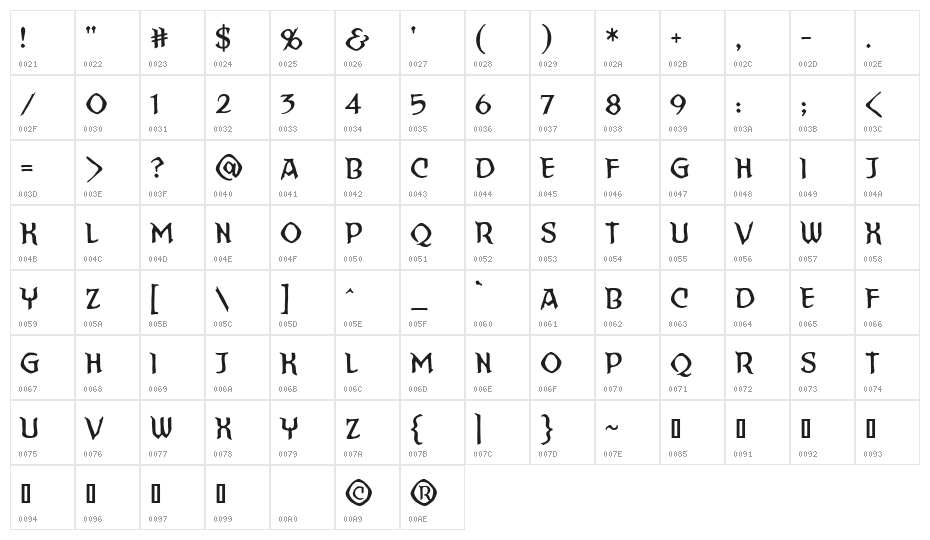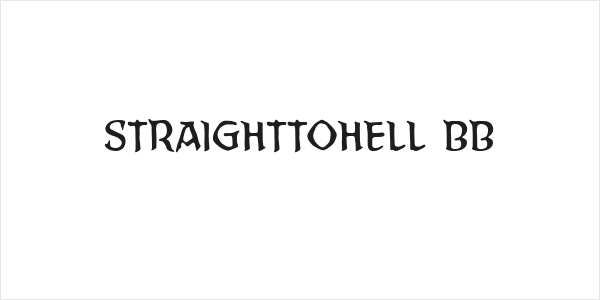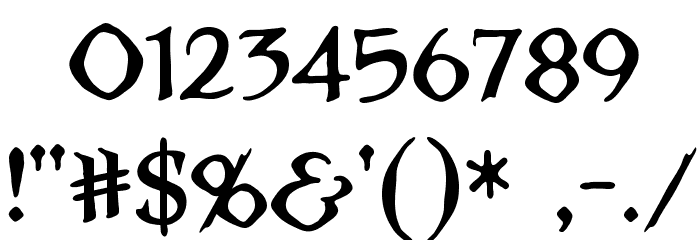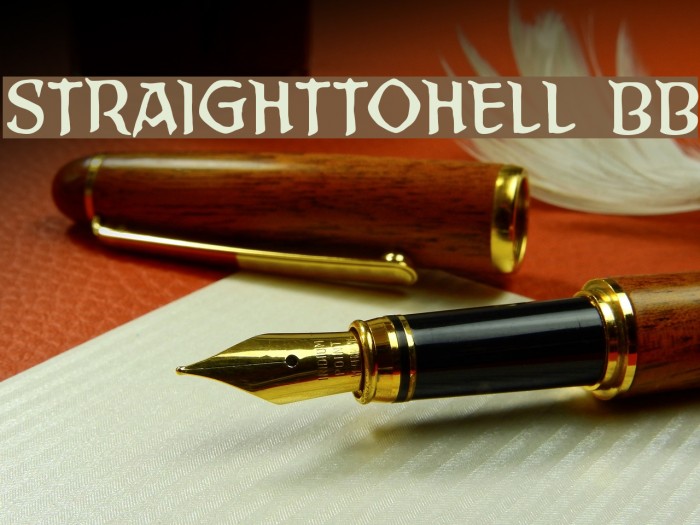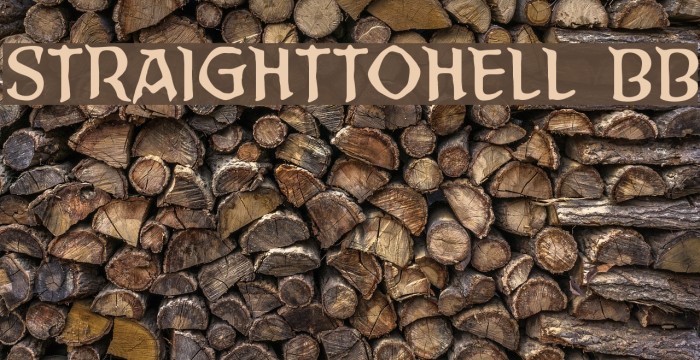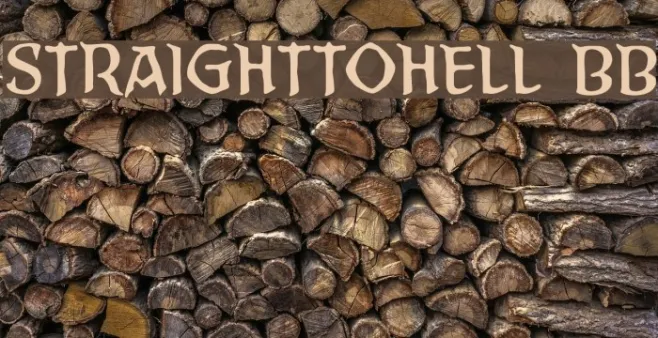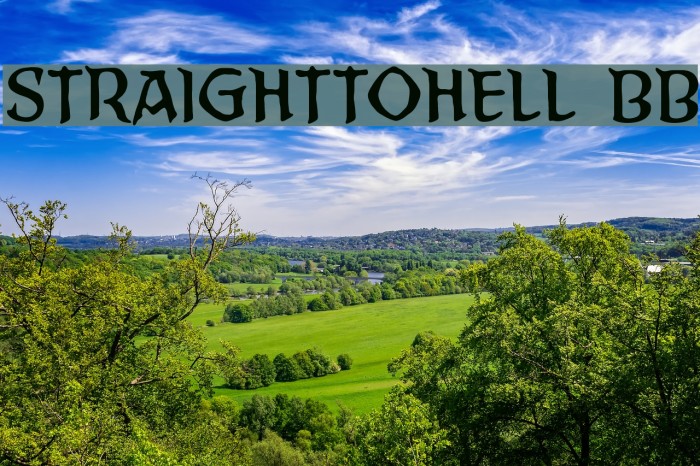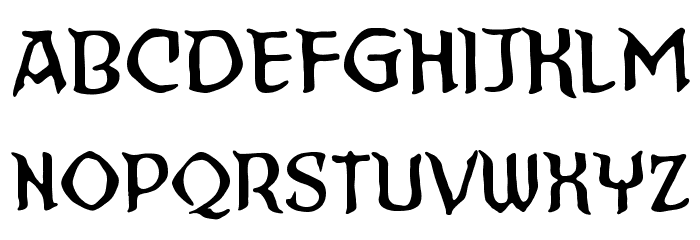
StraightToHell BB Font
StraightToHell BB Description
This font features a bold and dramatic style with sharp, angular edges and a gothic influence. The characters are designed with a strong presence, making them ideal for attention-grabbing headlines or titles. The uppercase and lowercase letters maintain a consistent style, with unique flourishes that add a touch of elegance and mystery. The numbers and special characters follow the same design principles, ensuring a cohesive look across all text elements. The overall appearance is both striking and memorable, suitable for projects that require a bold statement.
| Overall Style | Gothic, Dramatic |
| Proposed Projects | Ideal for use in horror-themed designs, album covers, posters, and branding that requires a bold, edgy look. |